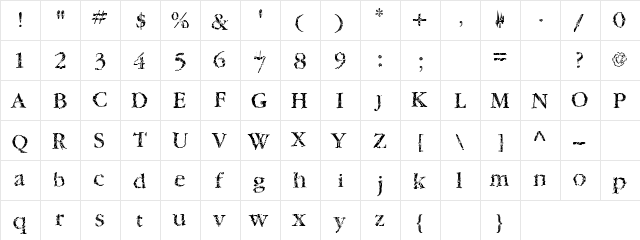
Sweeps Regular
Design Context for Sweeps Typeface
Sweeps is a composed and adaptable typeface that performs quietly and consistently across a wide range of design contexts.